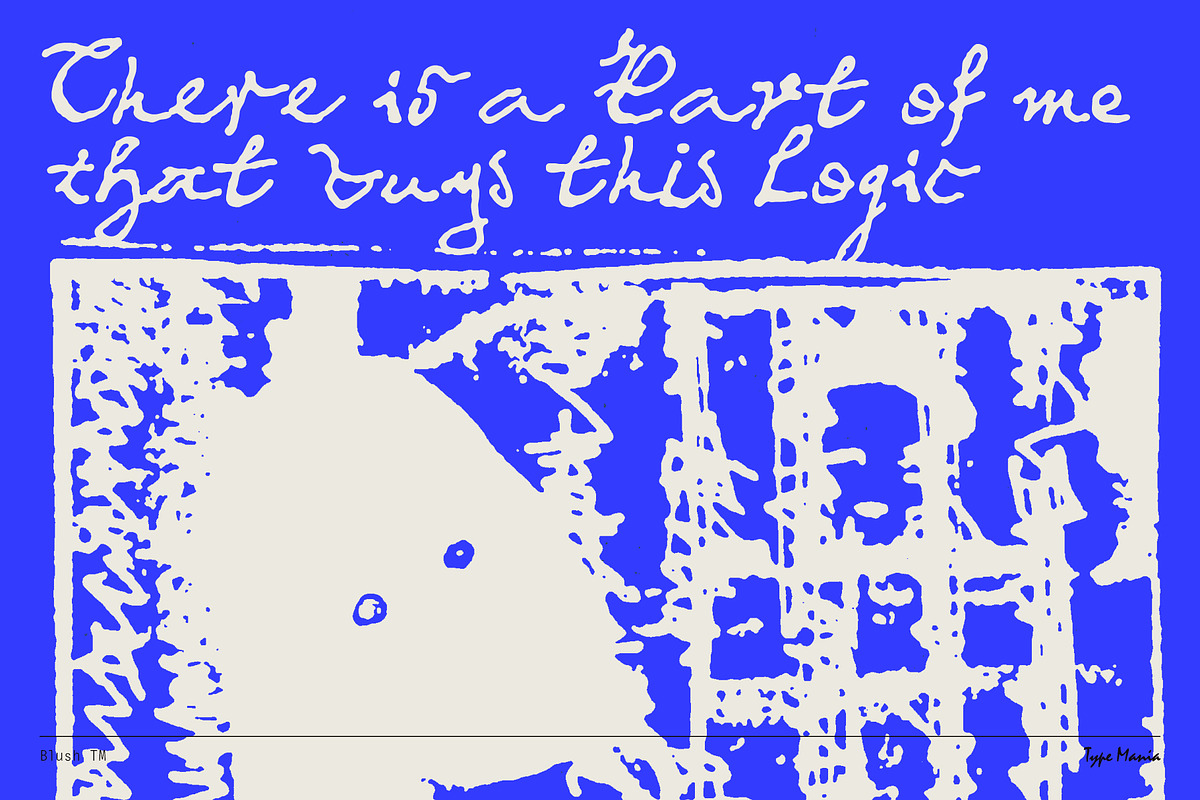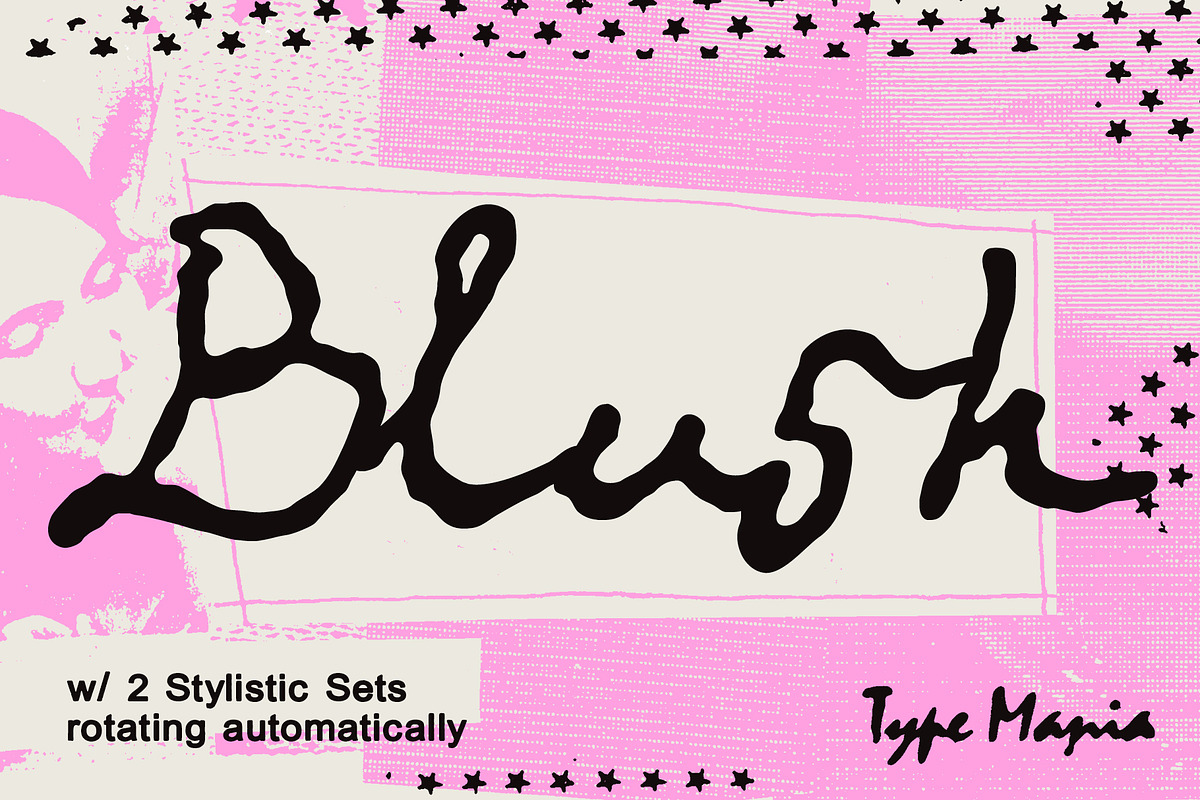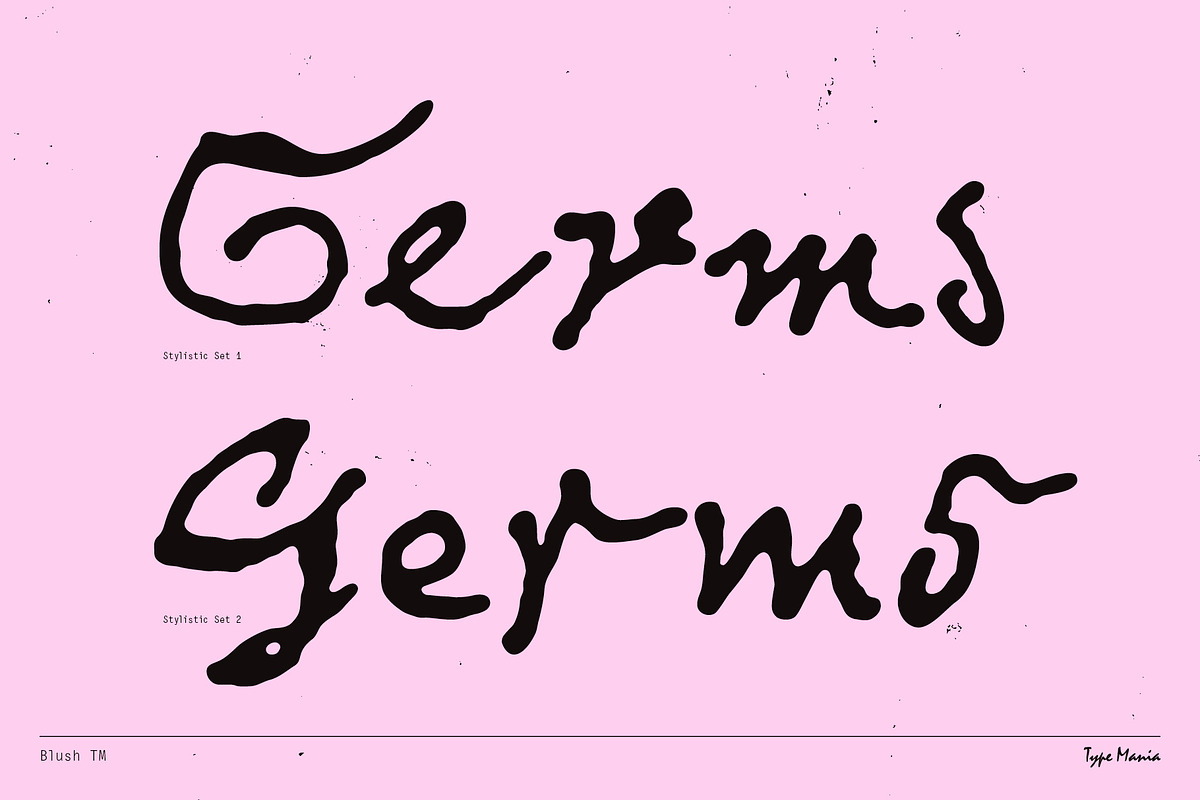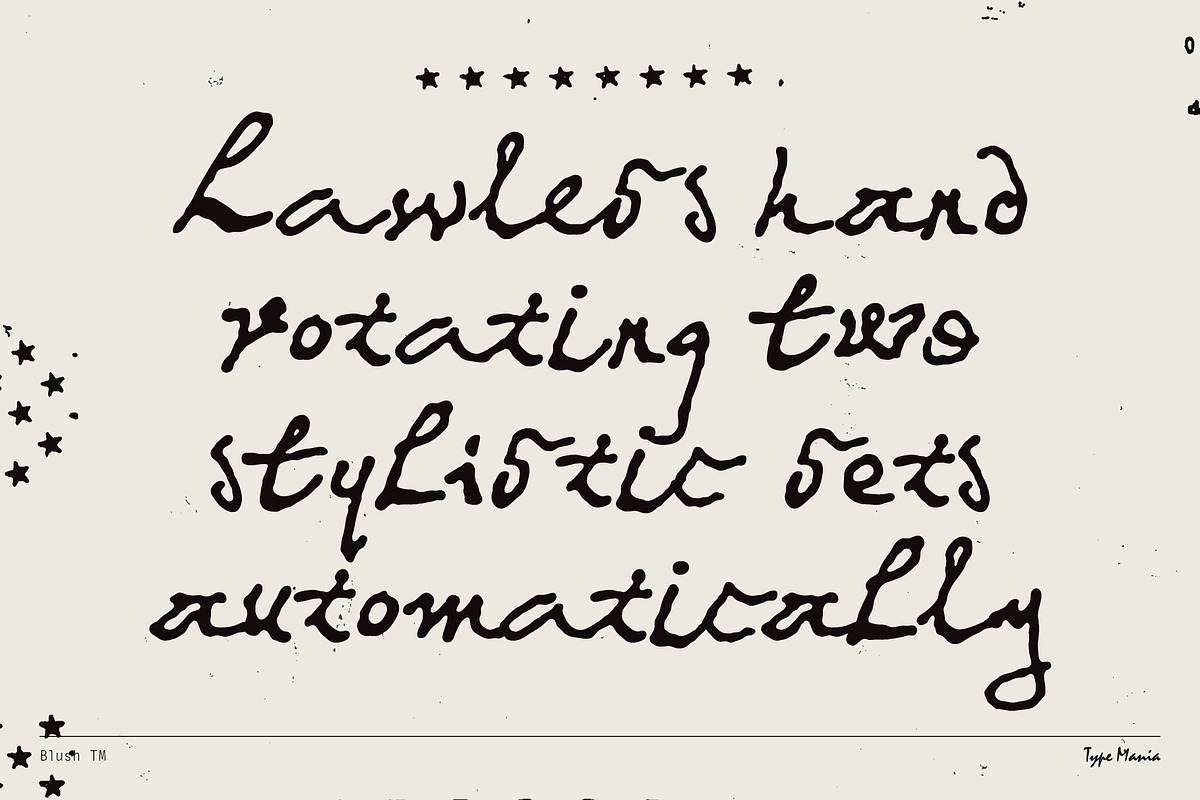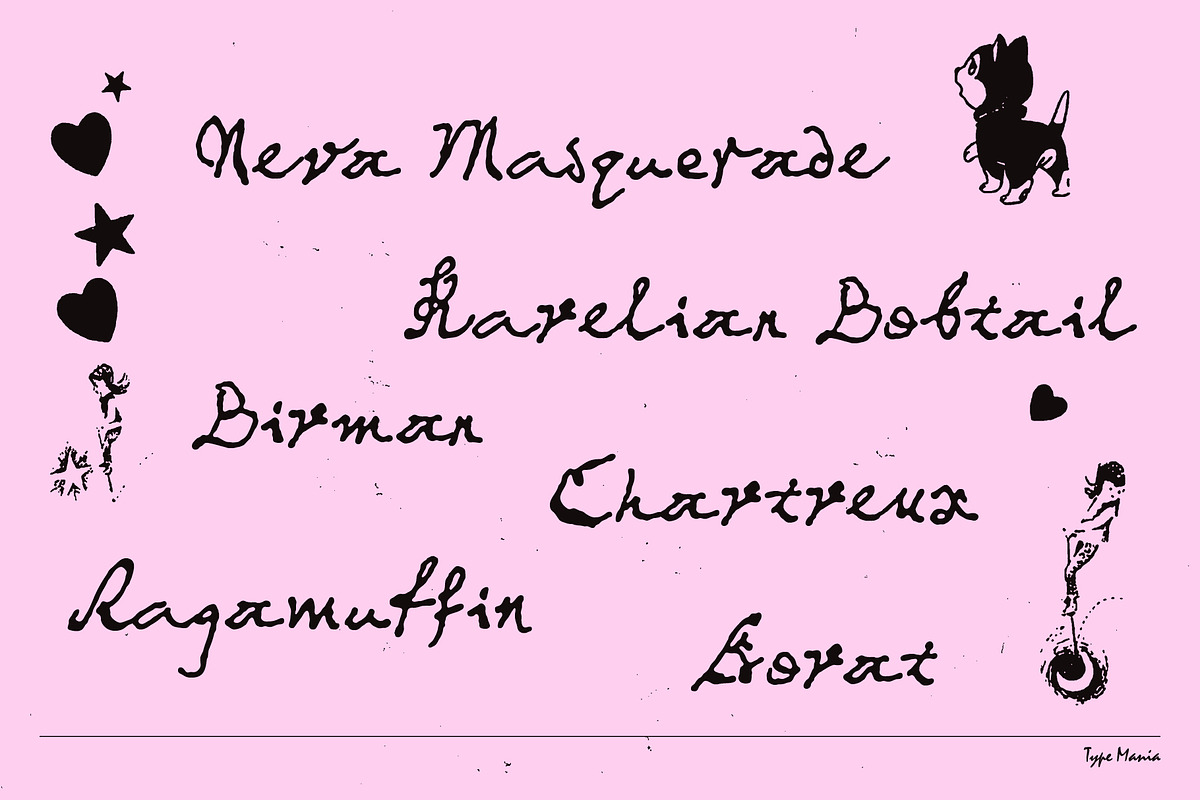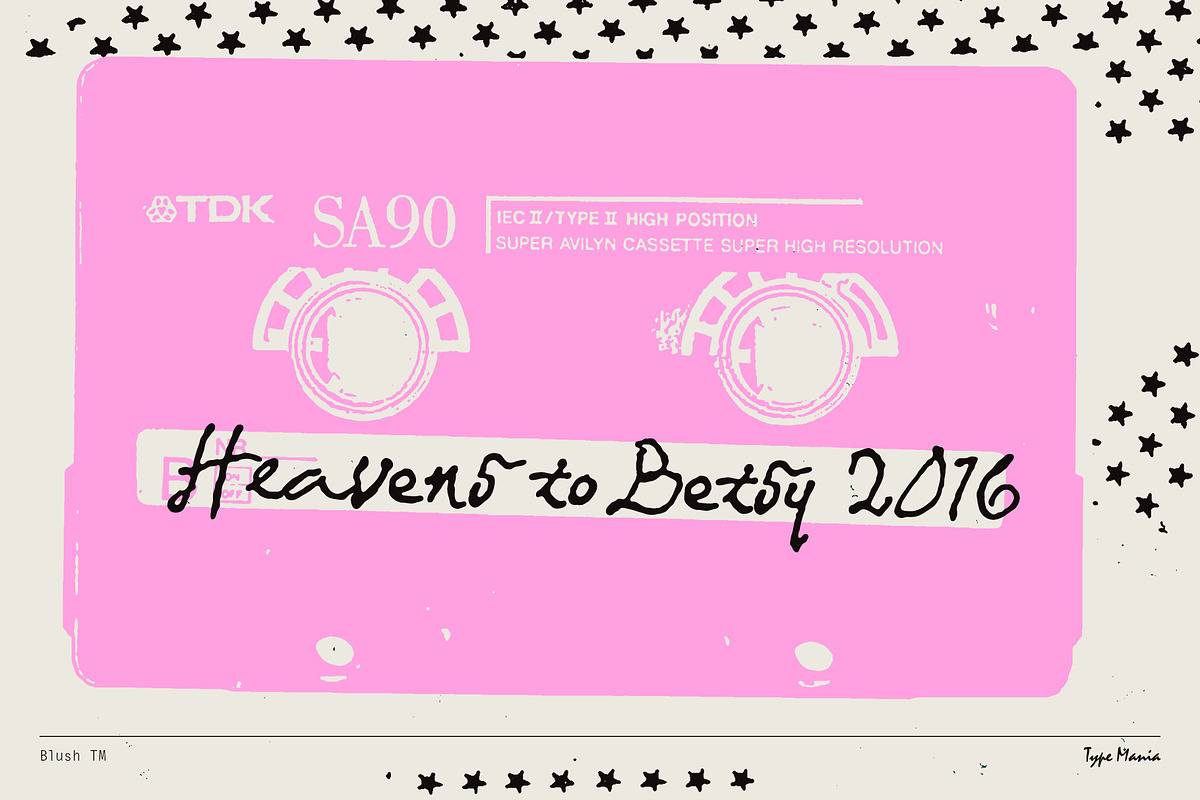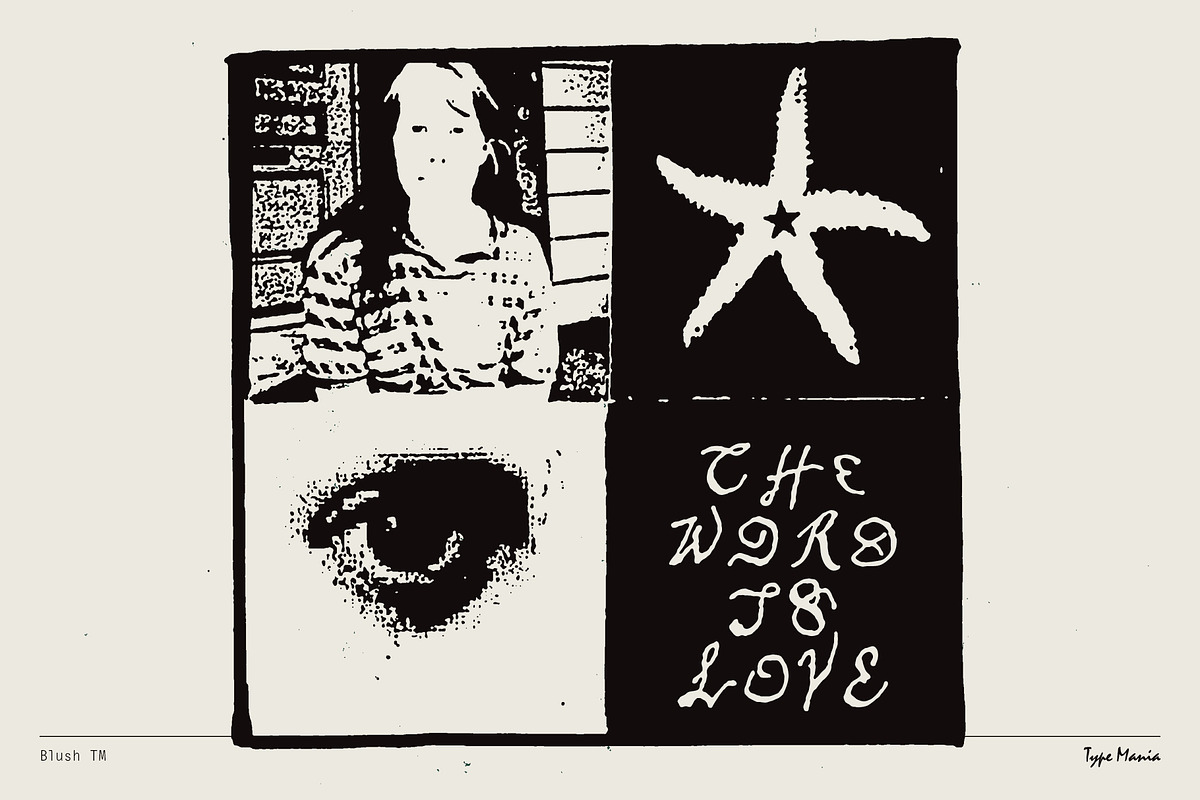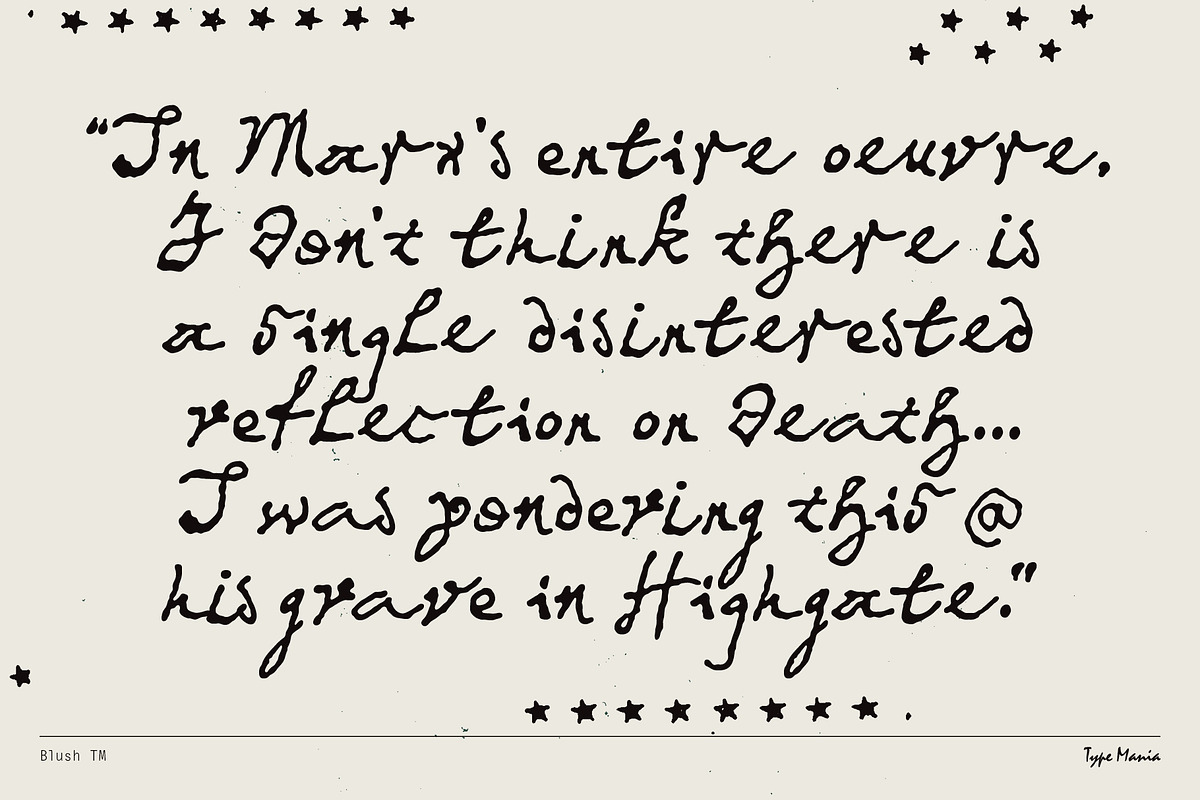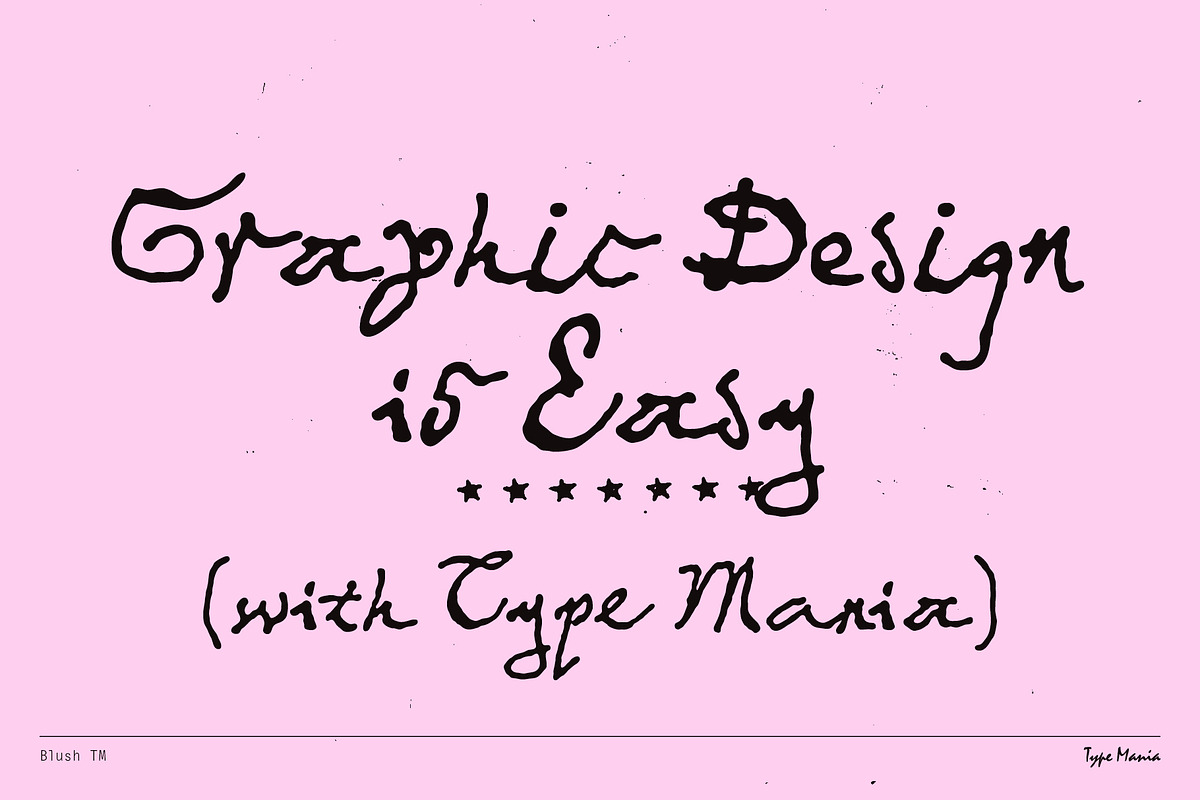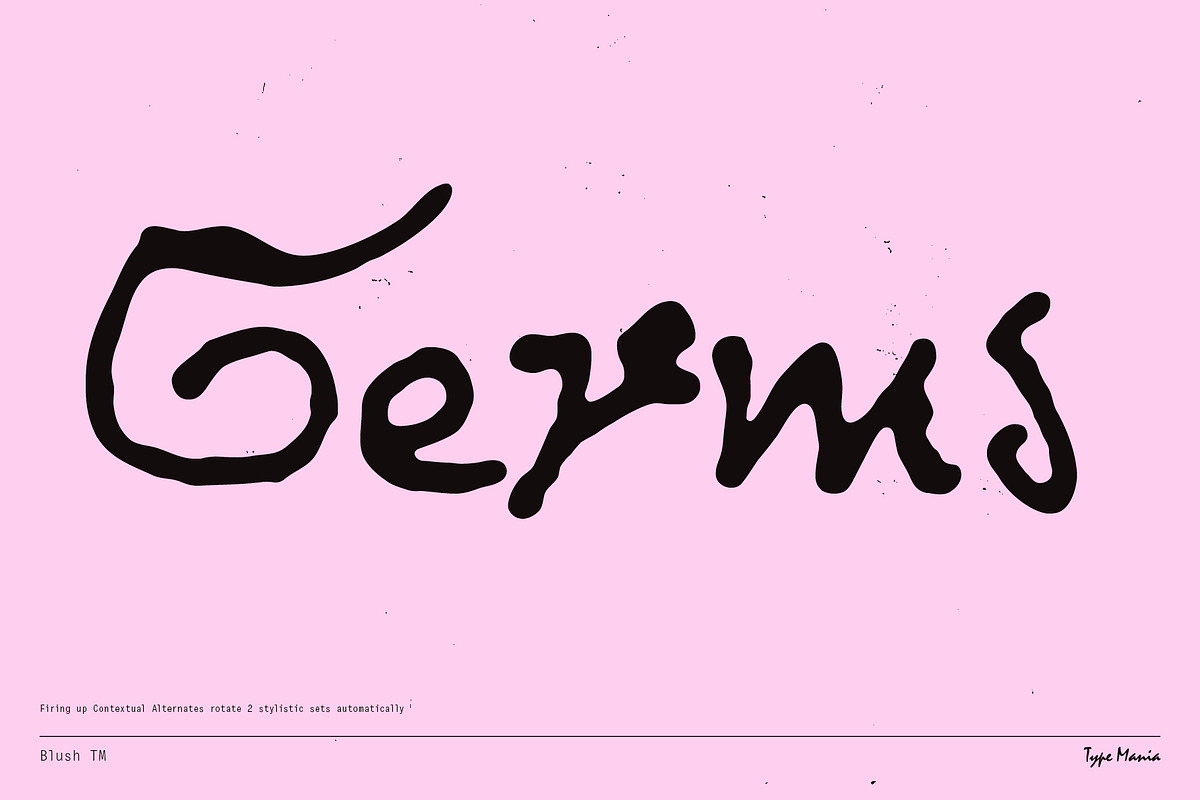
Blush TM – Messy Dynamic Script
Here's a delightfully anti-AI font for your next project, introducing —> Blush TM. A surprising, wonky script; kind of a hit or miss, really. As per usual, it boasts two distinct stylistic sets that rotate automatically with contextual alternates turned on, making crafting layouts a breeze.
OpenType features
- 2 stylistic sets
- The font is programmed to automatically shift between the stylistic sets